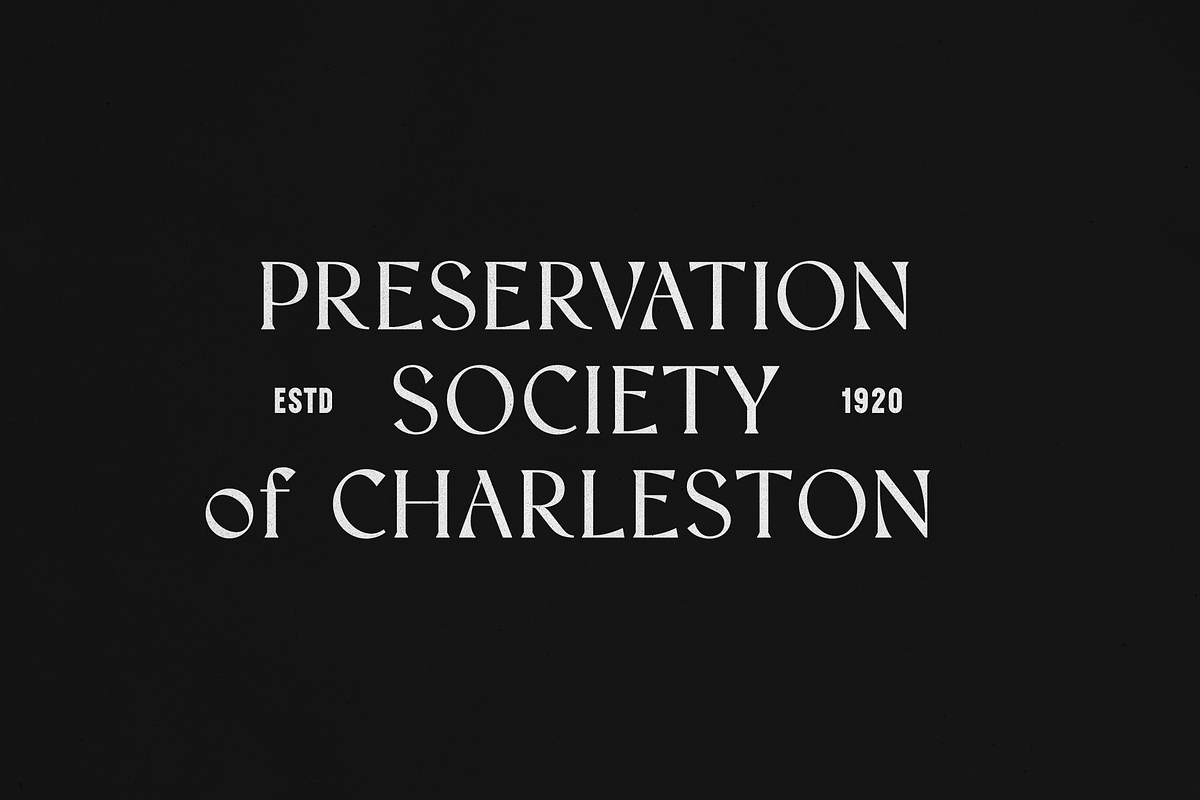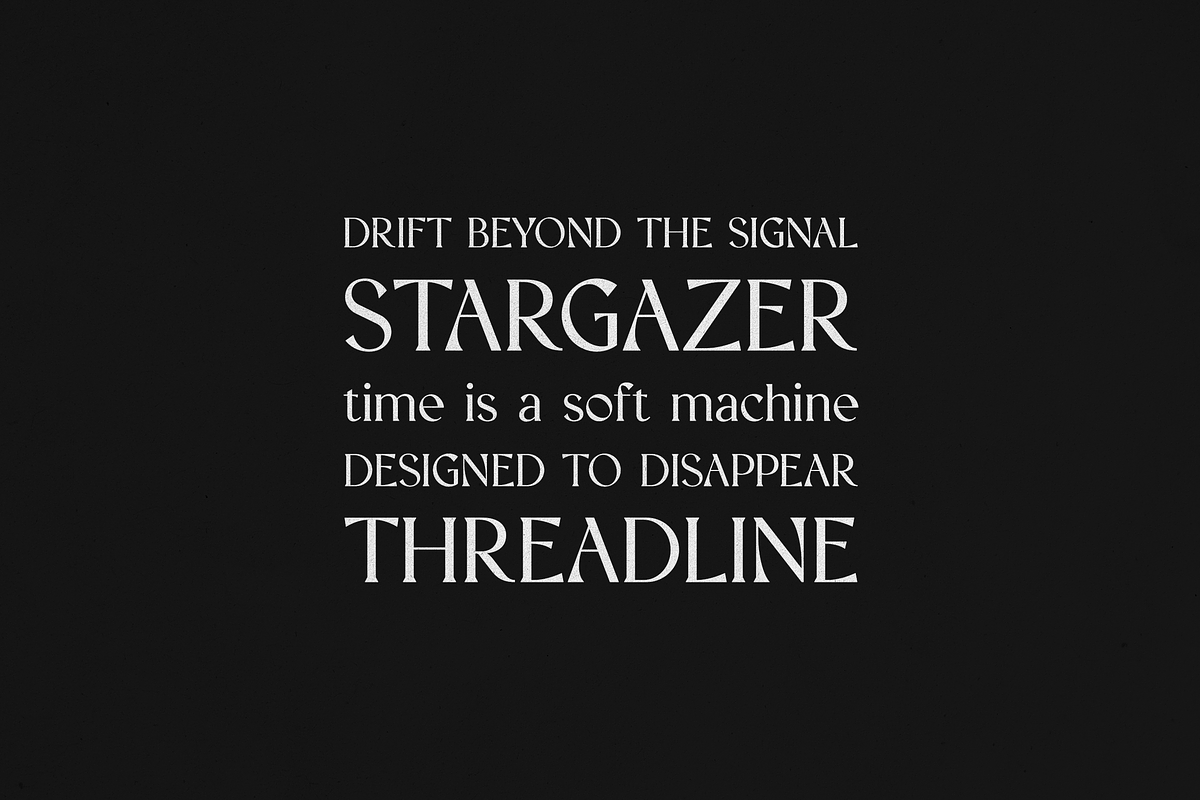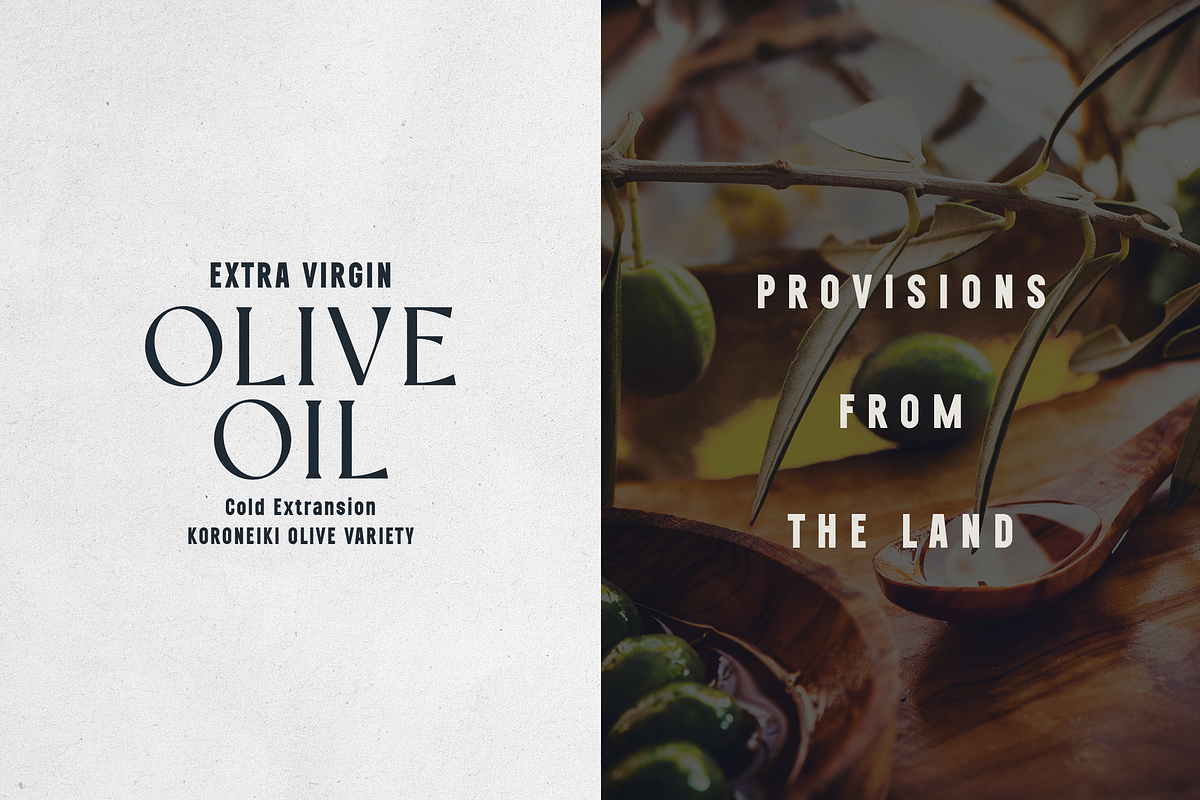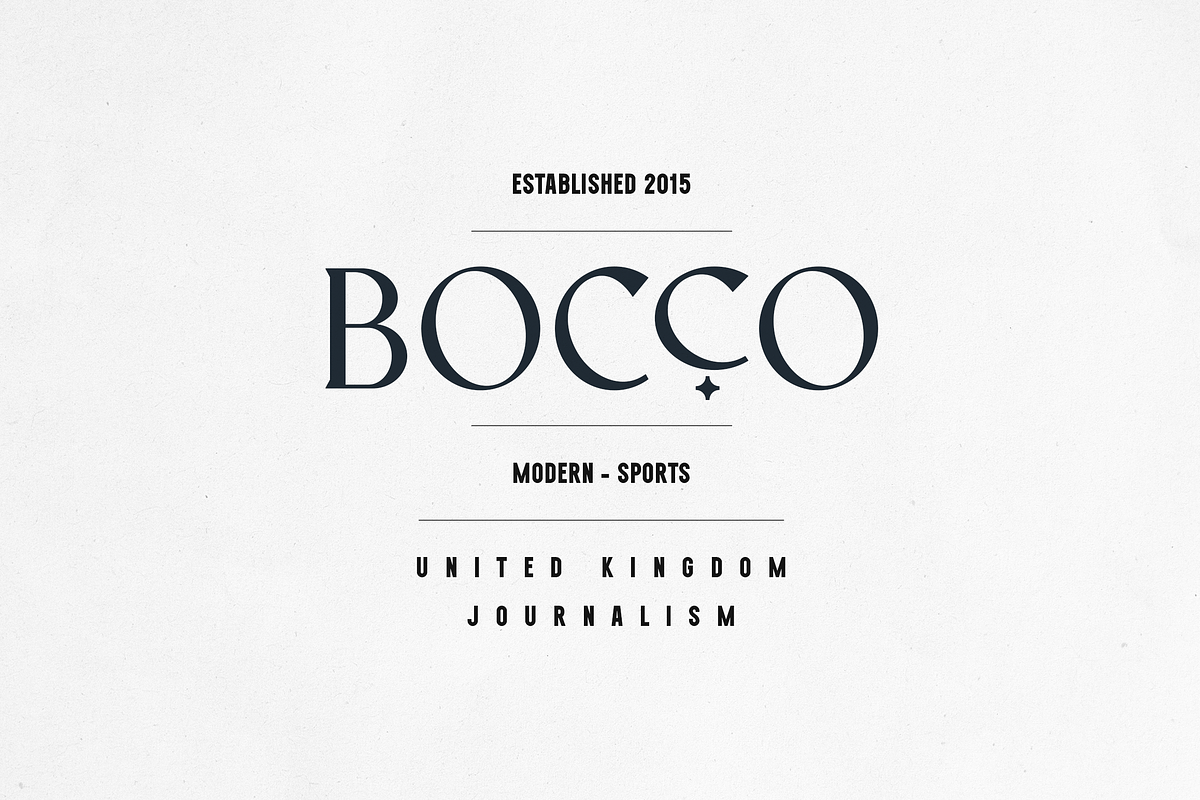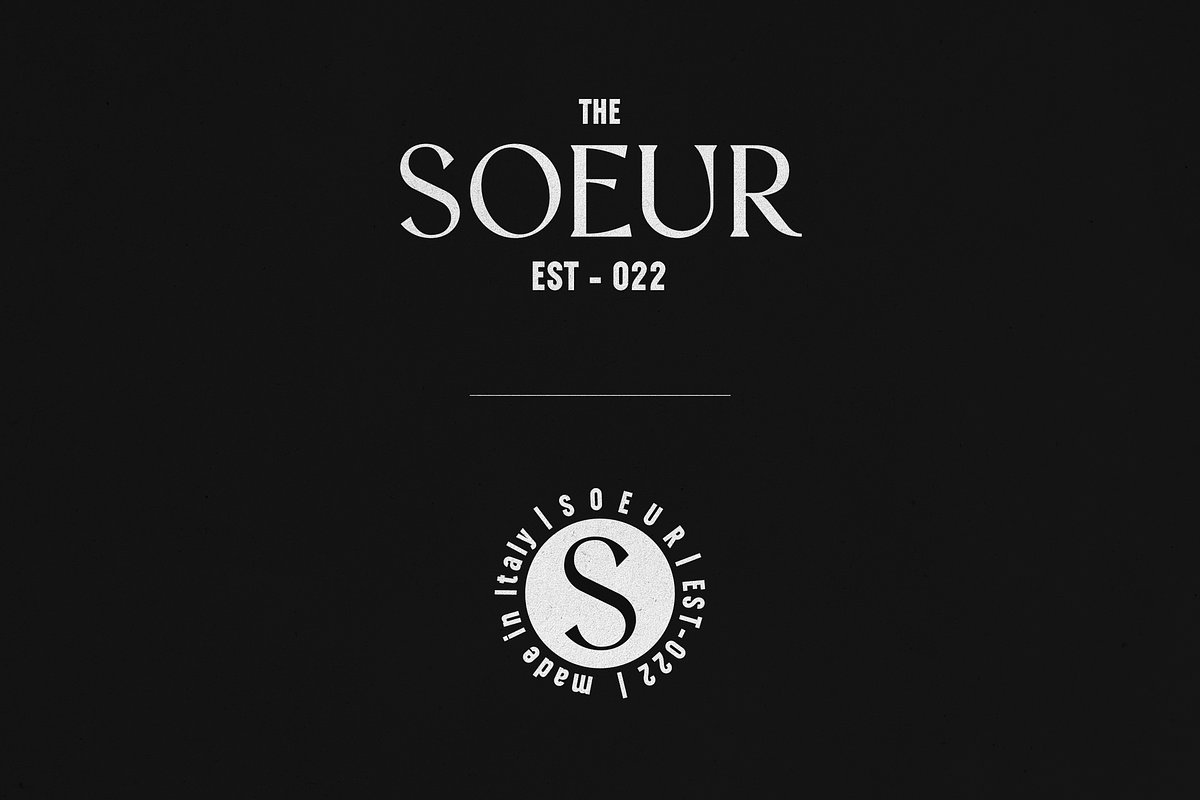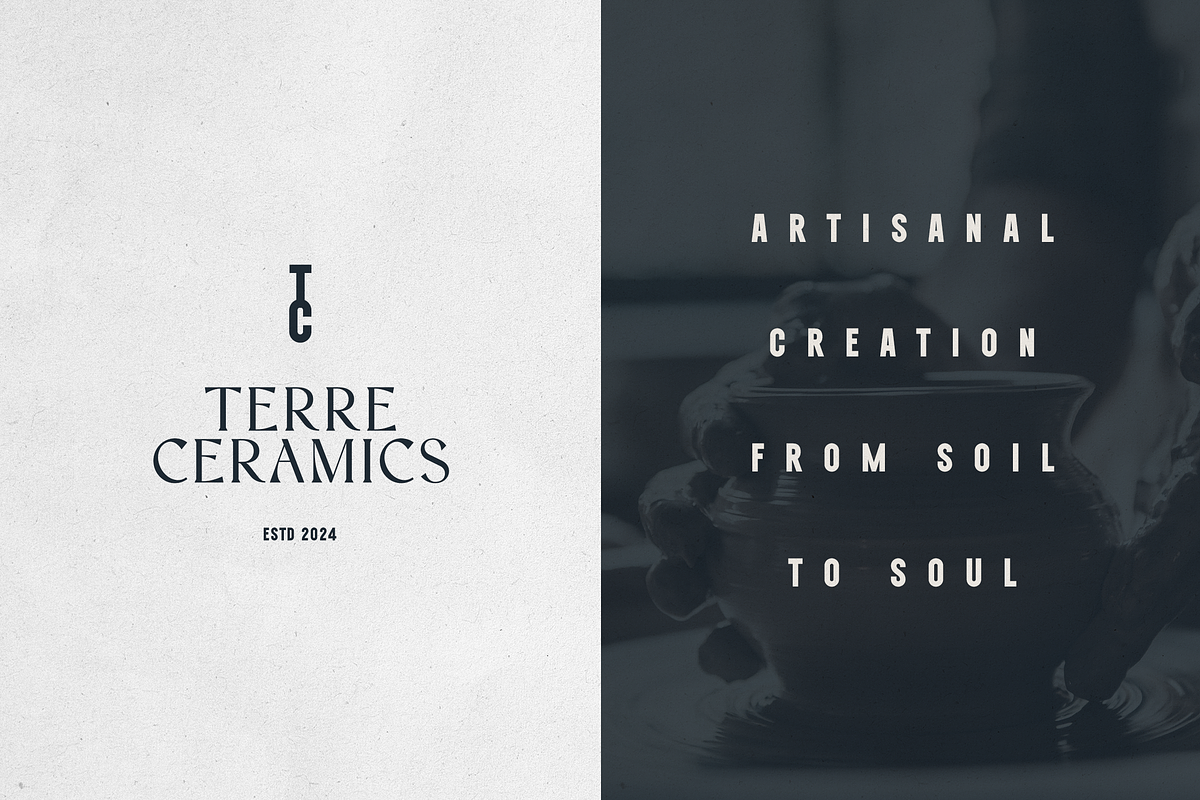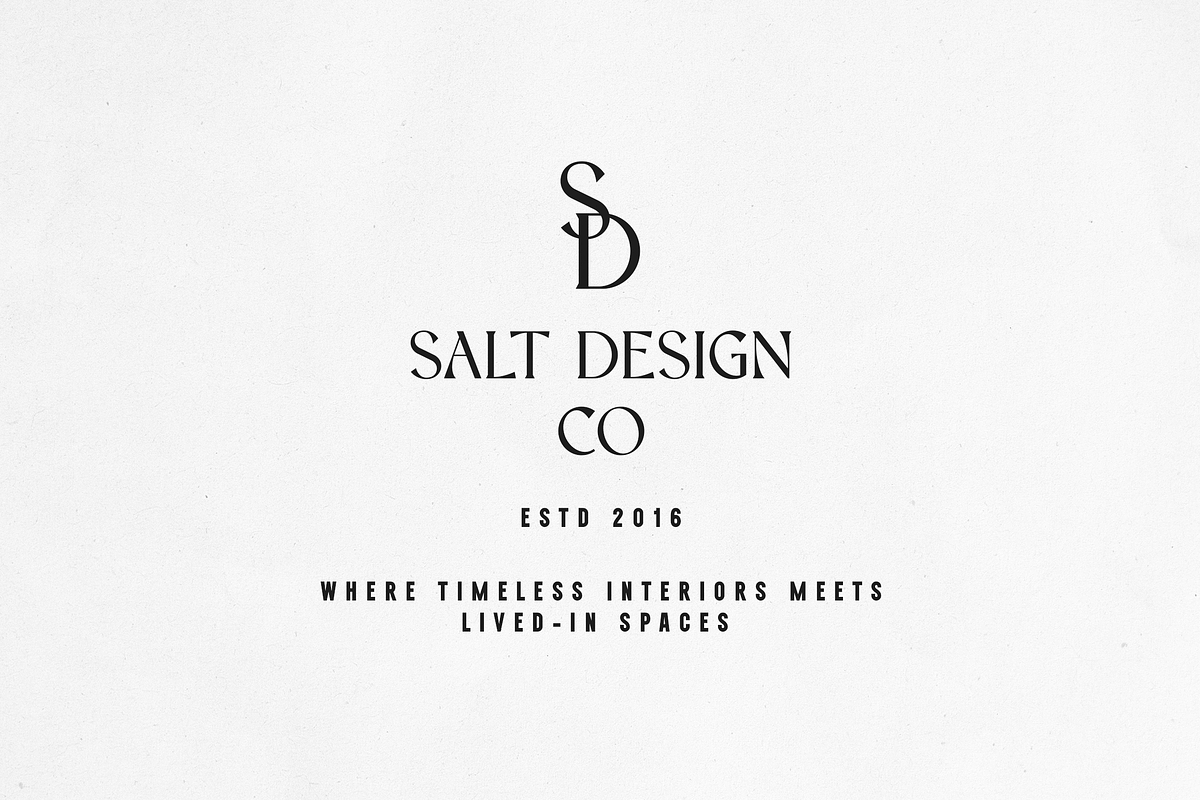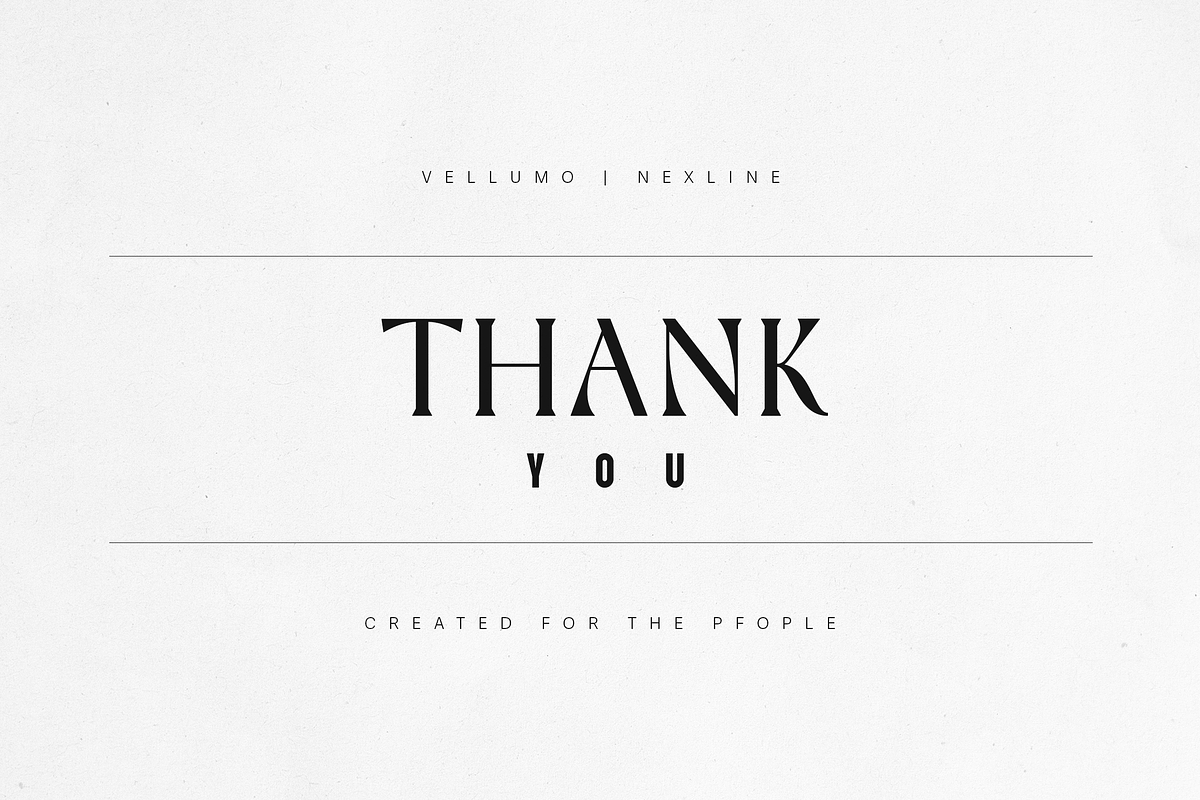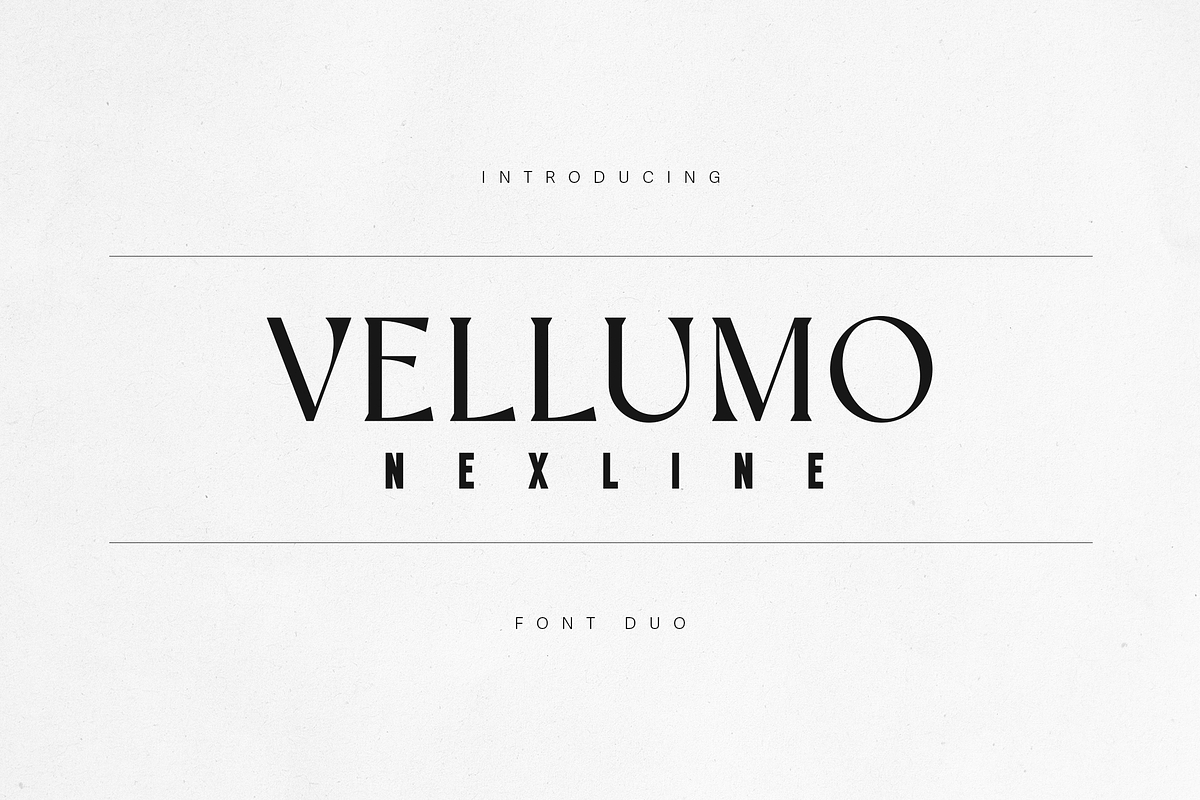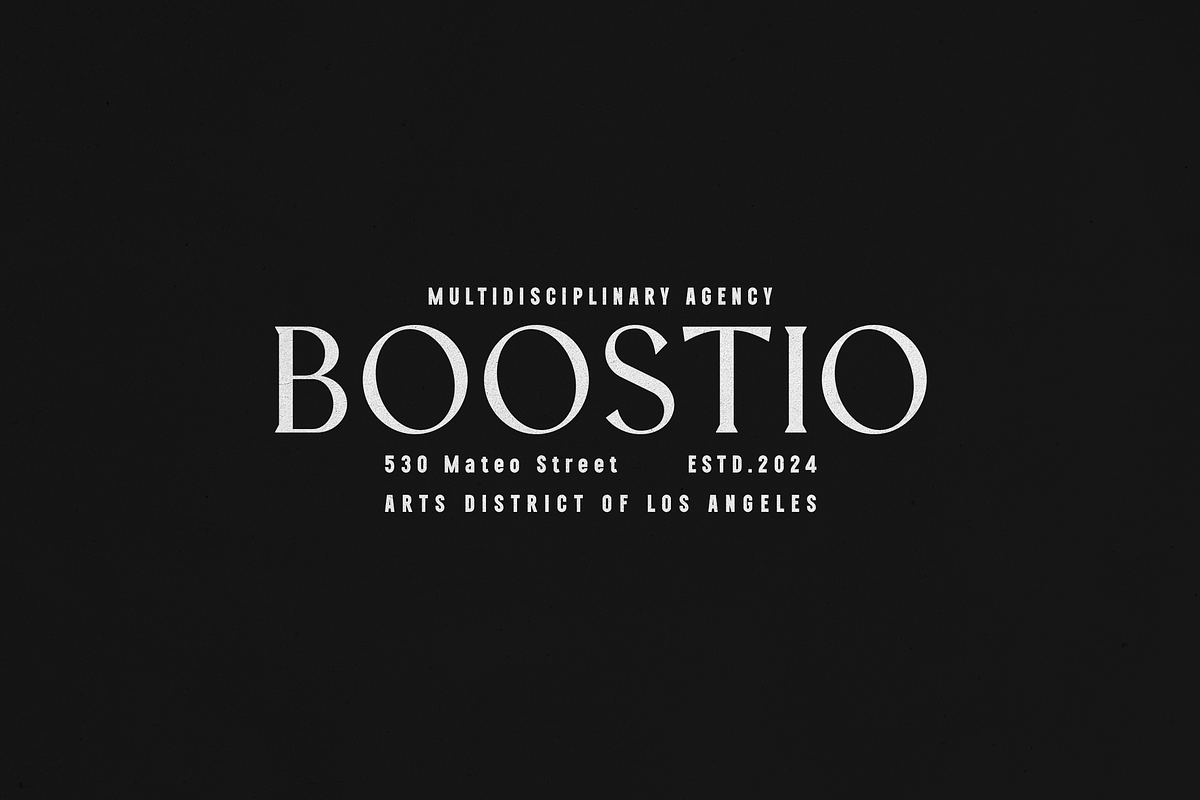
Vellumo & Nexline — Modern Font Duo
Vellumo & Nexline — Modern Serif & Sans Font Duo
Refined elegance meets contemporary minimalism. Vellumo & Nexline is a luxury font duo crafted for brands that value sophistication and clarity. The contrast between Vellumo’s elegant high-contrast serifs and Nexline’s clean, modern sans-serif lines creates the perfect harmony for timeless visual storytelling.
Designed for branding, editorial design, packaging, logos, and lifestyle projects, this font duo elevates every layout with style and confidence. Whether you’re crafting a high-end fashion identity, designing artisanal product labels, or building a sleek digital presence — Vellumo & Nexline delivers visual balance and distinction.
- Luxury branding
- Editorial headlines
- Fashion magazines
- Interior design studios
- Minimal packaging
- Signature logos
- Elegant serif (Vellumo) with refined contrast and artistic curves
- Minimal sans serif (Nexline) with geometric precision
- Full uppercase & lowercase, punctuation, and multilingual support
- Ideal pair for creating depth and hierarchy in modern design
Vellumo & Nexline — where modern refinement meets timeless design. Perfect harmony for creators who demand elegance and edge.